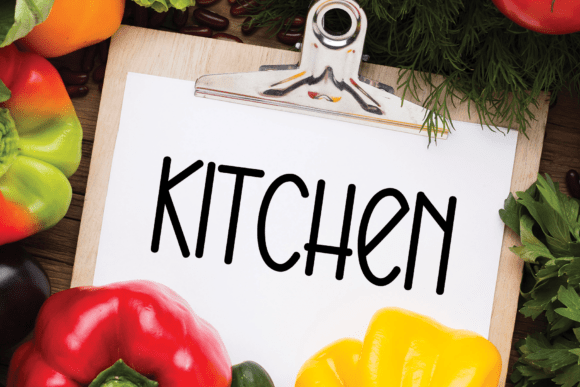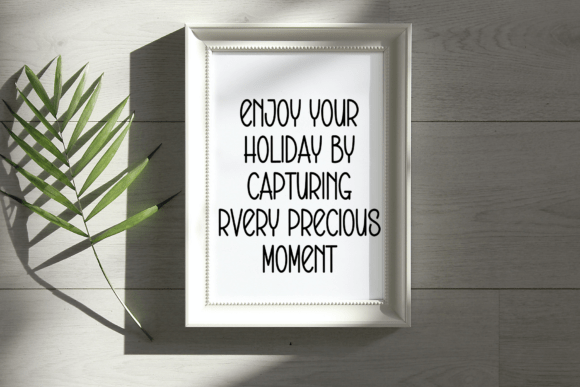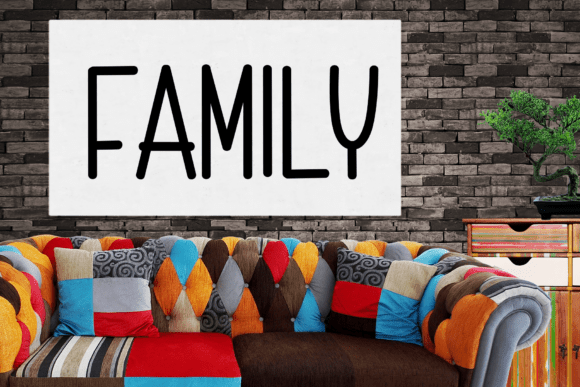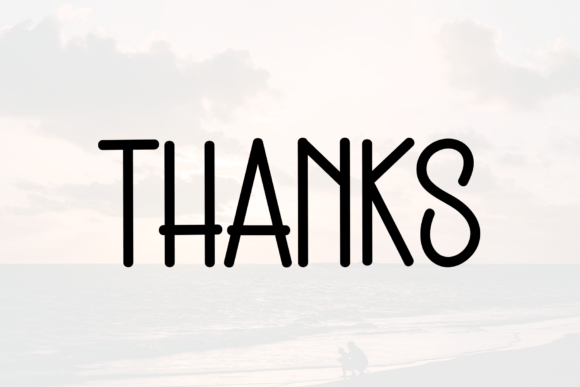
Have you ever found yourself staring at a blank page, waiting for inspiration to strike? For many of us, it’s the moment when creativity flows, and ideas start to unfold. It’s the spark that sets off a chain reaction of imagination, leading to something truly special. And for designers, it’s the perfect opportunity to bring their vision to life.
That’s where the Casualine Font comes in – a beautiful, handwritten font that’s sure to add a touch of warmth and personality to any design project. With its charming, dancing characters, this font is perfect for creating a cozy and inviting atmosphere. Whether you’re designing a logo, a brochure, or a social media post, Casualine Font is a valuable addition to your toolkit.
With Casualine Font, you’ll be able to add a unique and personal touch to your designs, setting them apart from the crowd. Its versatility and charm make it an essential tool for any designer looking to create something truly special.
Casualine Font Key Features
- Font Family: Casualine Font is a modern sans-serif font family designed for digital use, available in multiple weights and styles.
- Character Set: The font includes a comprehensive character set, supporting multiple languages, including Latin, Cyrillic, and Greek scripts.
- Resolution: Casualine Font is designed for high-resolution displays, with optimized glyphs for screens with a resolution of 72 dpi to 300 dpi.
- Unique Characteristics: The font features a unique blend of geometric and organic shapes, resulting in a clean and friendly appearance that works well for body text and headings.
Casualine Font Review
Overall, I’d say Casualine is a solid choice for designers looking for a friendly, approachable font. ✨ It’s perfect for body text, and its informal vibe makes it great for creative projects, like blogs or social media graphics.
- ✨ Friendly and approachable feel, making it perfect for casual content
- ✨ Good for body text, especially for longer passages
- ✨ Suitable for creative projects, like blogs or social media graphics
- ✨ Comes in a variety of weights and styles, giving designers flexibility
However, there are some limitations:
- ⚠️ Casualine may not be the best choice for formal or professional projects, where a more formal font is preferred
- ⚠️ The font may not be as readable in smaller sizes or at a distance
- ⚠️ Some users may find the font too casual or informal for certain projects
Overall, I’d give Casualine 4 out of 5 stars. While it’s not perfect, it’s a great choice for designers who want a friendly, approachable font for casual projects. With some careful consideration of its limitations, Casualine can be a valuable addition to any designer’s toolkit.
Tip: Use Casualine font for headings and titles to add a touch of sophistication to your designs.
Tip: Use Casualine font for text overlays or graphics to add a relaxed, casual feel.
Tip: Use Casualine font for titles, headings, or body text to add a modern, casual touch.
Casualine font is suitable for:
- Blog posts and articles
- Social media graphics
- Business cards and stationery
- Wedding invitations and event materials
Remember to use Casualine font in moderation to avoid overwhelming your design.
Alternatives to Casualine Font for Designers
Lato Font is a modern sans-serif typeface that is perfect for creating clean and minimalist designs. It is a great alternative to Casualine Font for designers who want to add a touch of sophistication to their work. Lato Font is highly legible and works well for both body text and headings.
Compared to Casualine Font, Lato Font is more modern and sleek, making it ideal for contemporary designs. While Casualine Font has a more playful feel, Lato Font is more professional and versatile.
The recommended line spacing for Casualine Font is between 1.2 and 1.5 times the font size. This will help maintain a comfortable reading experience and prevent the text from becoming too dense or too sparse.
Q: Does Casualine Font support various languages?
Casualine Font supports a wide range of languages, including Latin, Cyrillic, and Greek alphabets. However, it’s essential to check the font’s language support before using it for a specific project. You can check the font’s documentation or contact the font provider for more information.